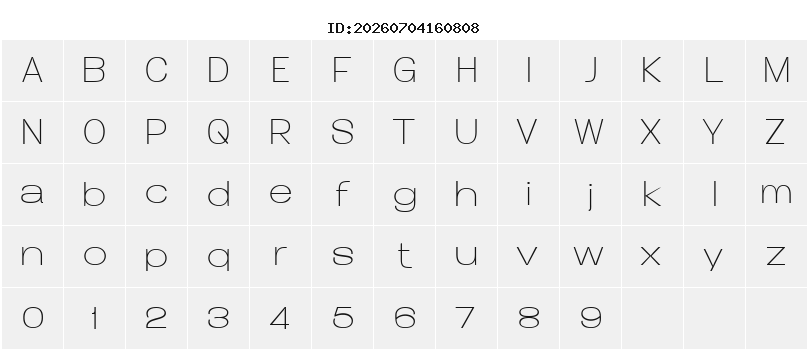
Duera PERSONAL USE Expanded Preview
• Font Name: Duera PERSONAL USE Expanded
• Font Style: Thin
• Full Font Name: Duera PERSONAL USE Expanded Thin
• Designer: Mans Greback
About Duera PERSONAL USE Expanded.ttf
Duera PERSONAL USE Expanded.ttf is a modern, elegant sans-serif font designed for ultimate readability and visual harmony. Perfect for branding, headlines, web design, and print materials.